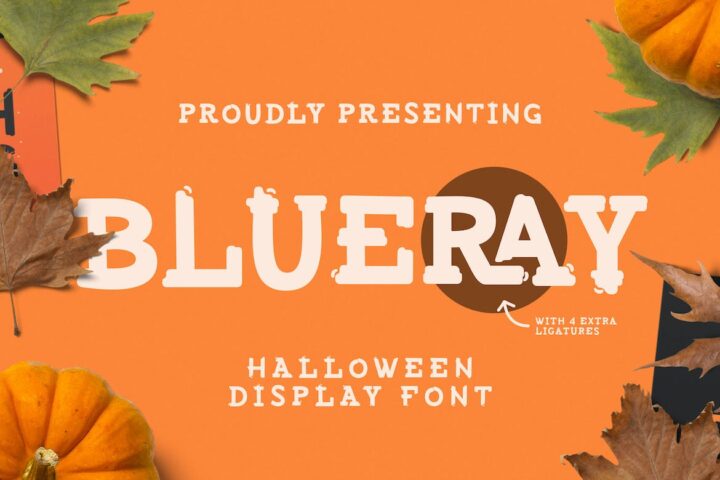
Blueray – Halloween Font
Presenting Blueray Font is suitable logo, branding, book, t-shirt, magazine, halloween season, headline and etc. Our fonts have Uppercase & Lowercase, Numeral & Punctuation, Multilingual support and Opentype Features. For Amazing designs you can mix with other fonts as a complement.